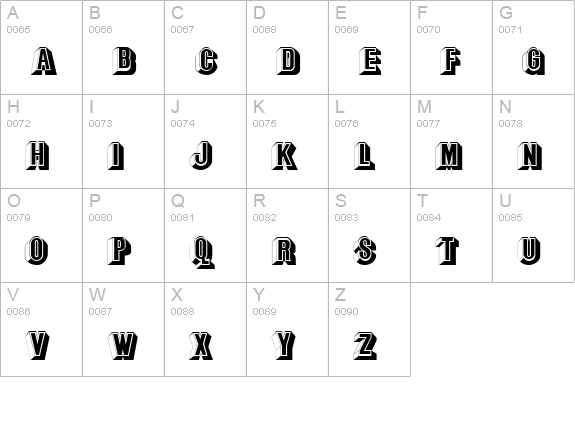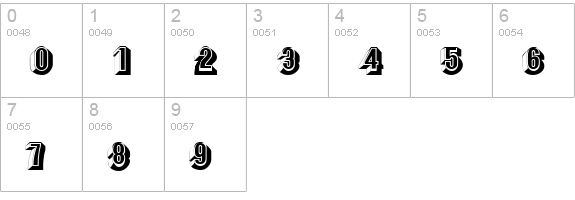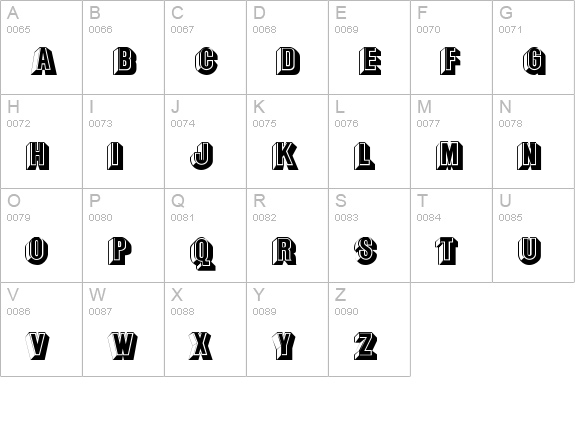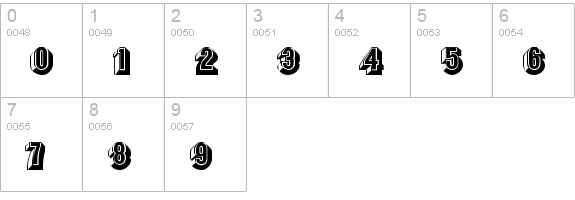
Parapa Display Caps SSi Font Details
Parapa Display Caps SSi is a stunning font that exudes a sense of elegance and sophistication. With its bold and eye-catching letterforms, this font is perfect for creating impactful headlines, titles, and logos. The clean lines and sharp edges of Parapa Display Caps SSi make it highly legible, ensuring that your message is easily conveyed to the reader. Its capital letters are beautifully designed, with each character carefully crafted to create a harmonious and balanced composition. This font is freely available to download at FontsMarket.com, making it accessible to designers, artists, and enthusiasts alike. Whether you're working on a personal project or a professional endeavor, Parapa Display Caps SSi is the ideal choice for adding a touch of class and sophistication to your designs. With its versatile nature, this font can be used in a variety of contexts, from digital and print media to branding and advertising. Its timeless appeal and modern aesthetic make it a go-to option for those looking to make a bold statement. Parapa Display Caps SSi is a true testament to the power of typography. It seamlessly combines elements of classic design with a contemporary twist, resulting in a font that is both visually striking and highly impactful. So, why wait? Download Parapa Display Caps SSi for free at FontsMarket.com and unlock a world of possibilities for your creative projects. Elevate your designs with this stunning font and make a lasting impression on your audience.